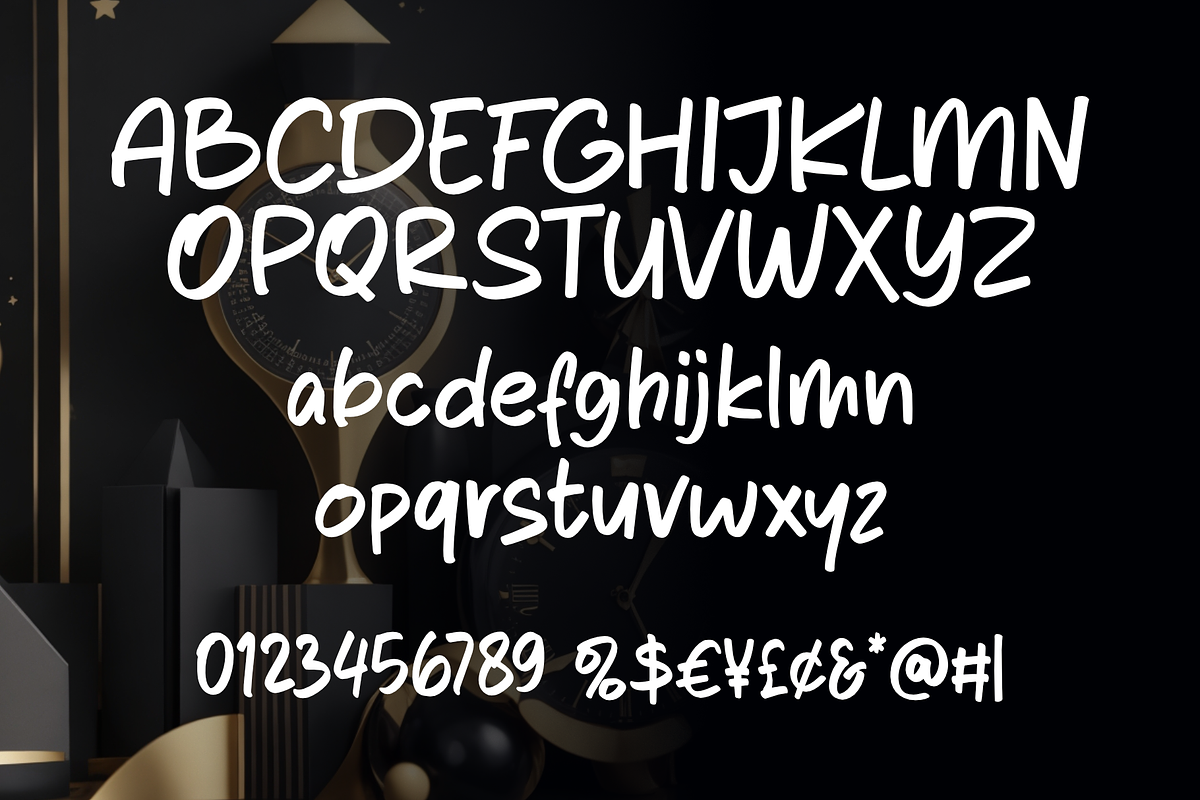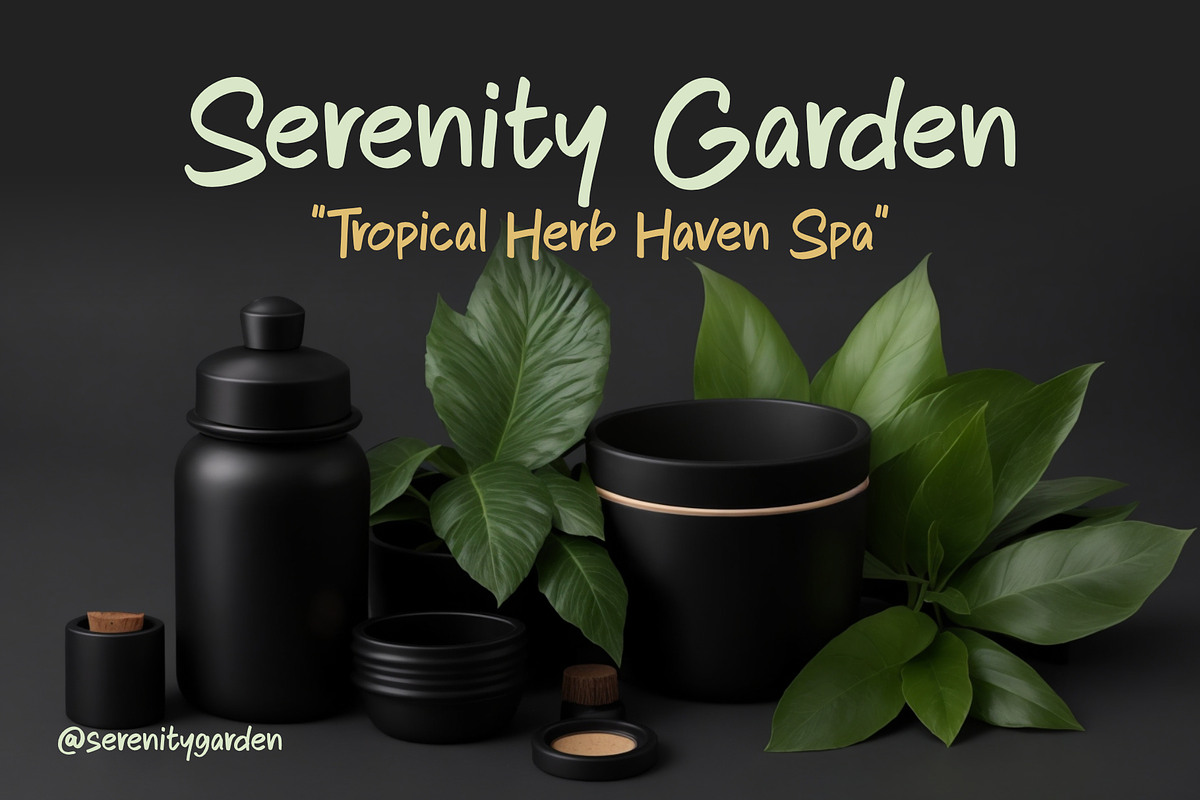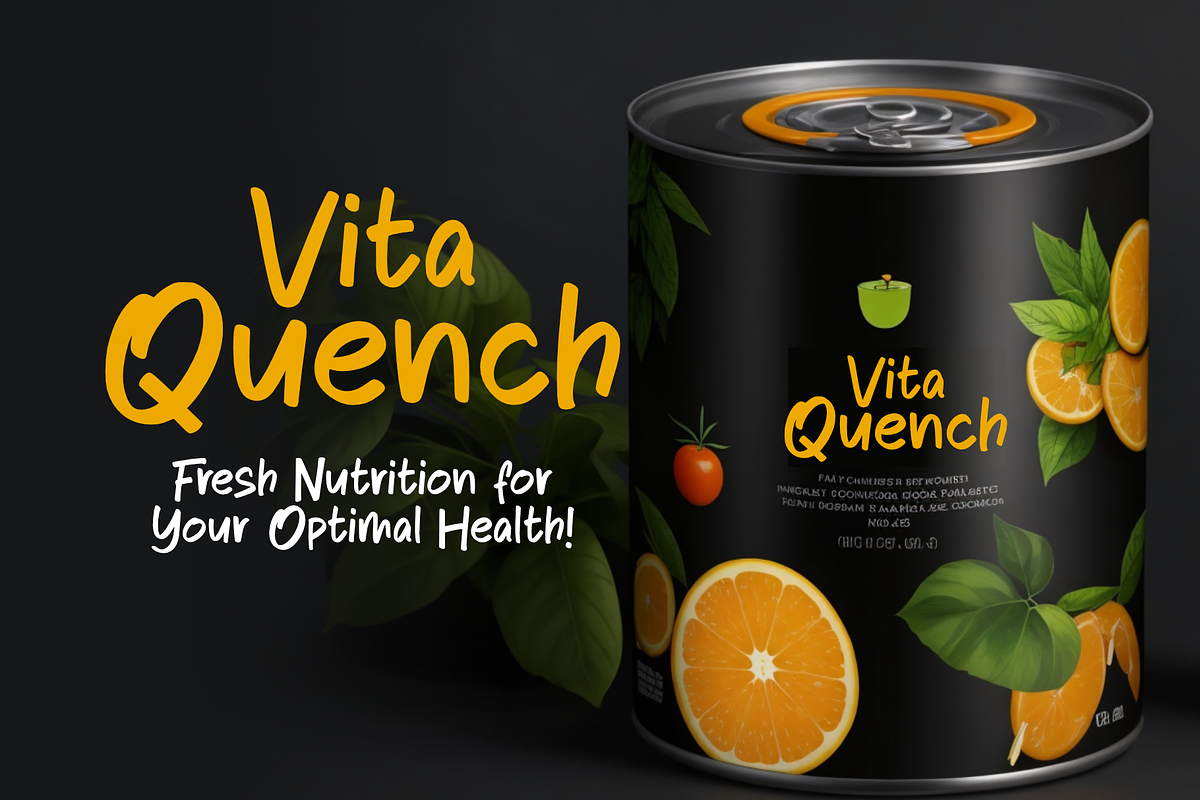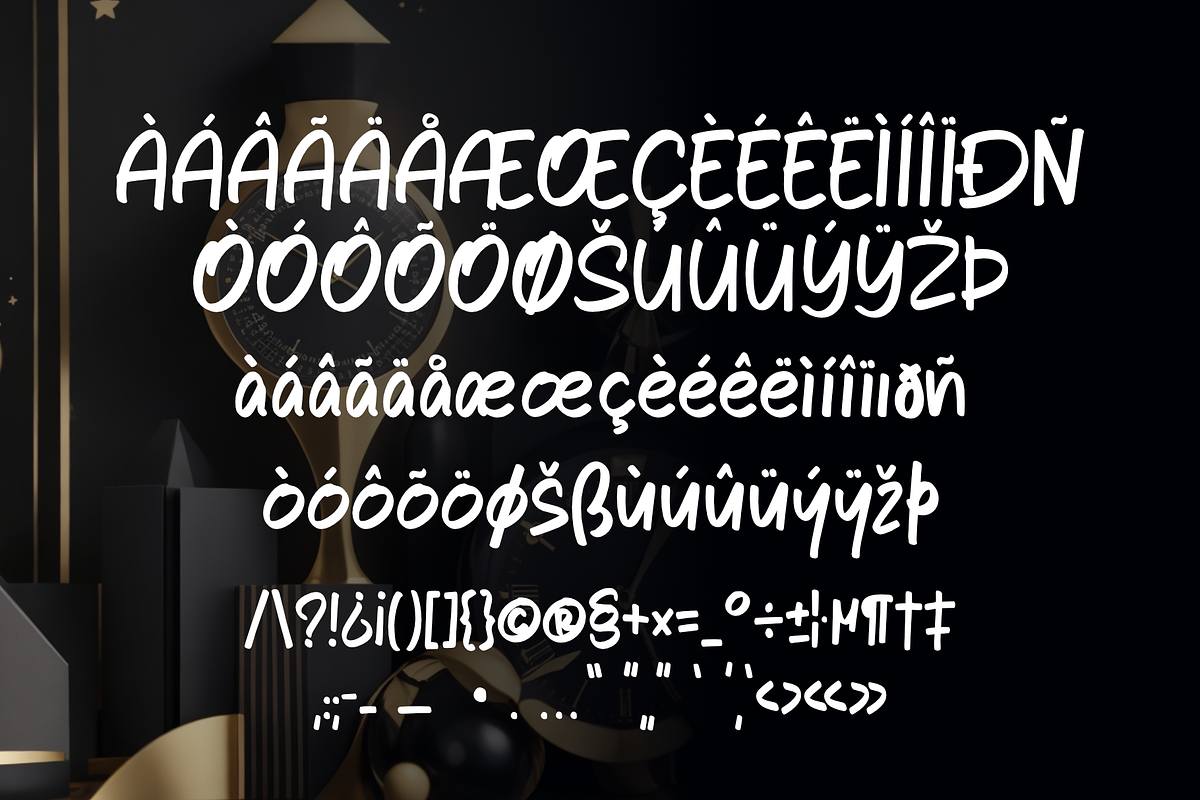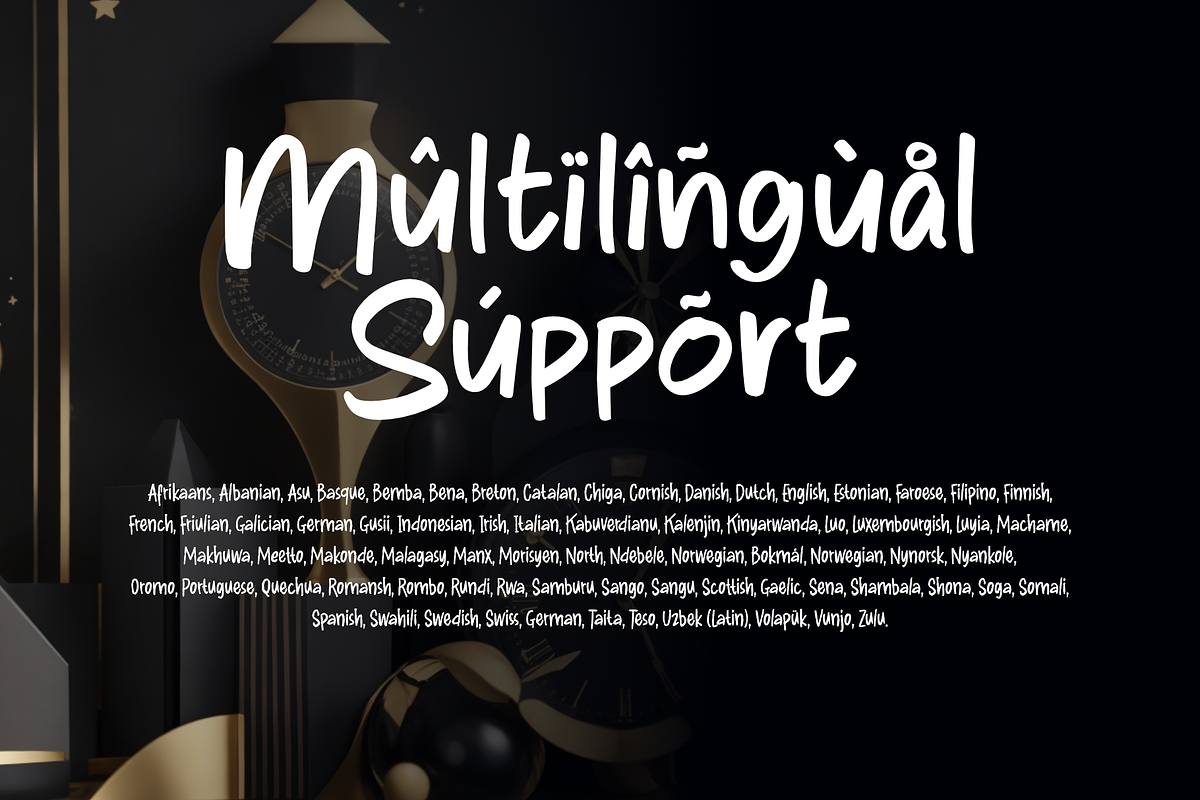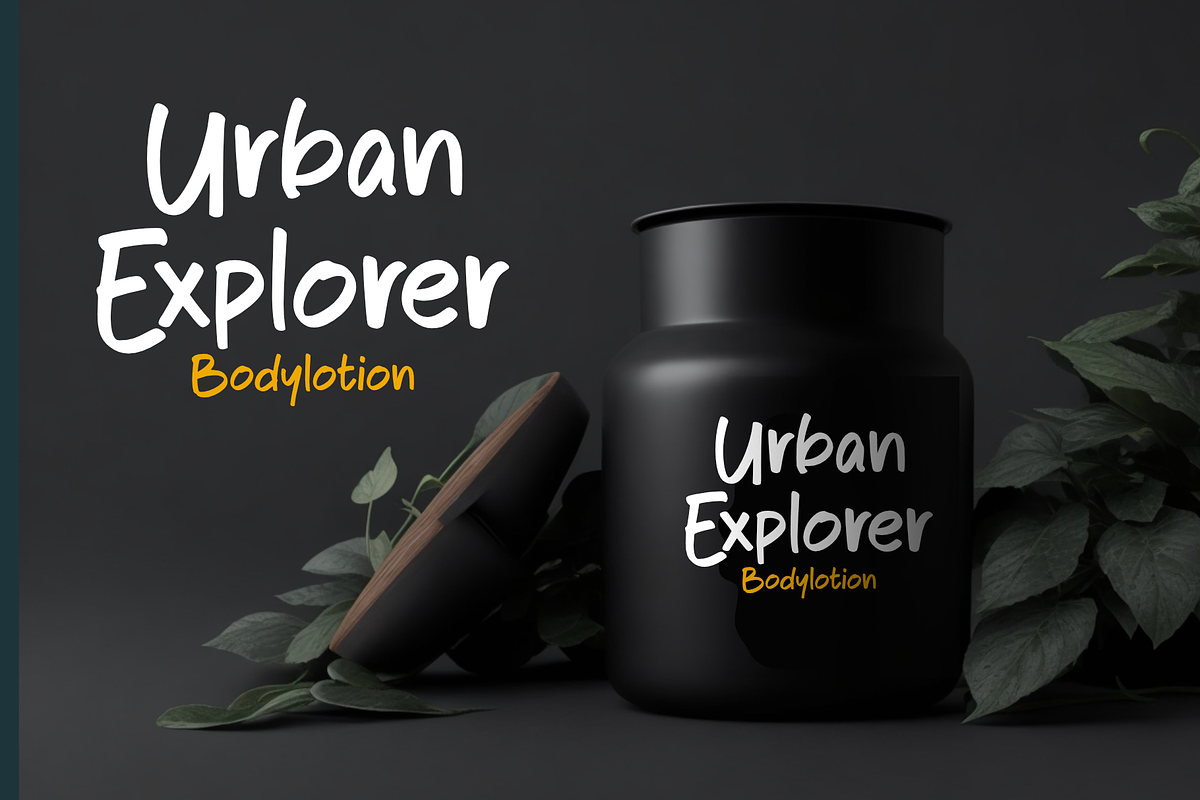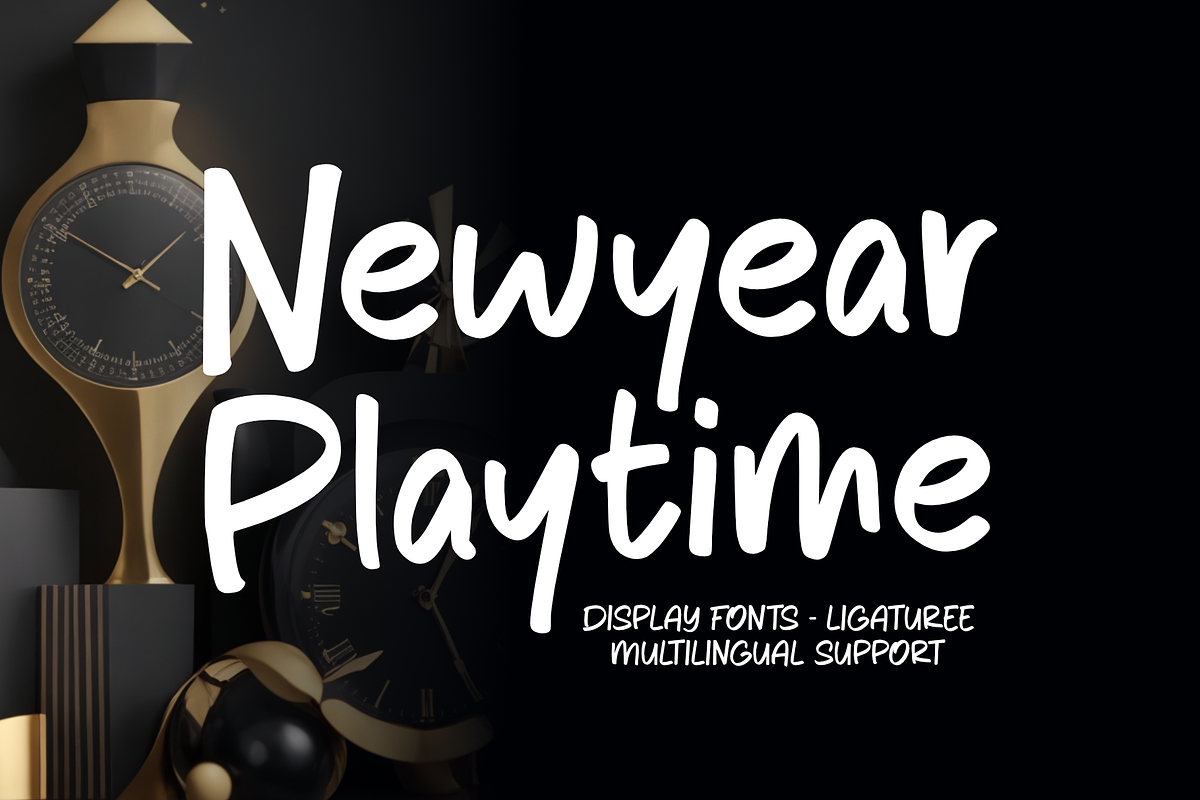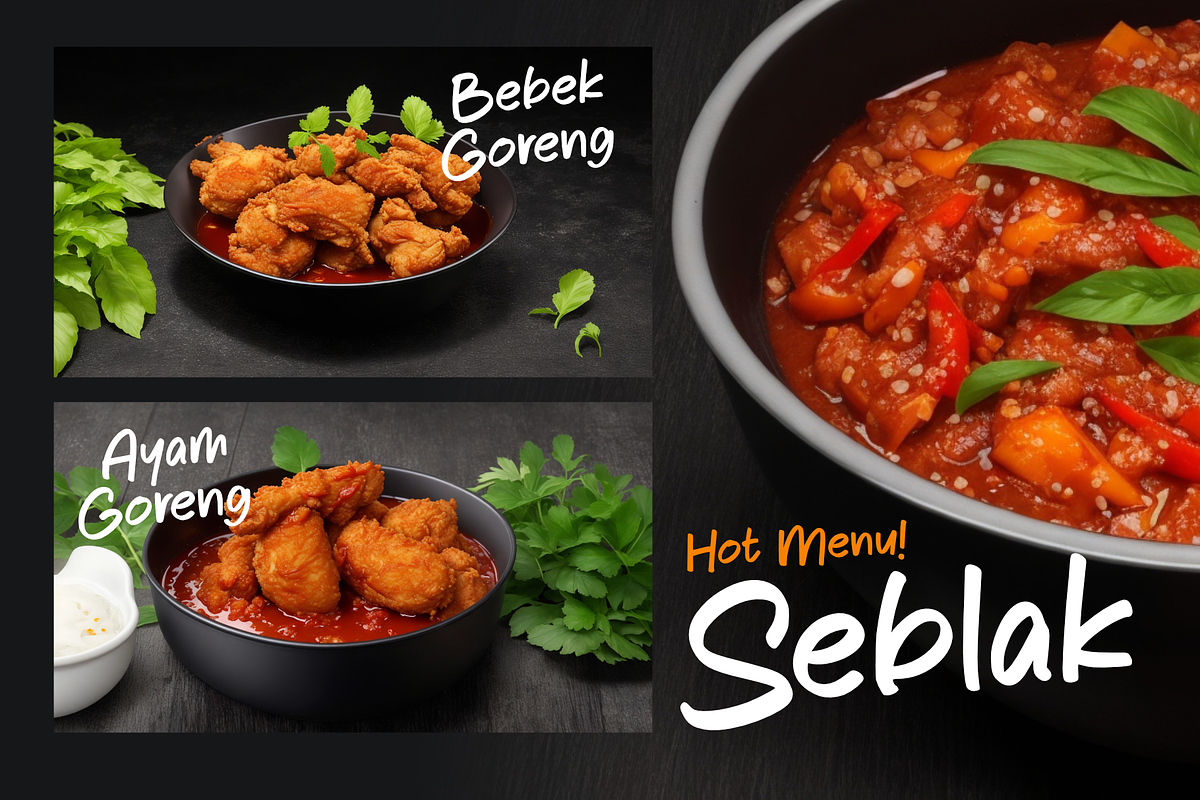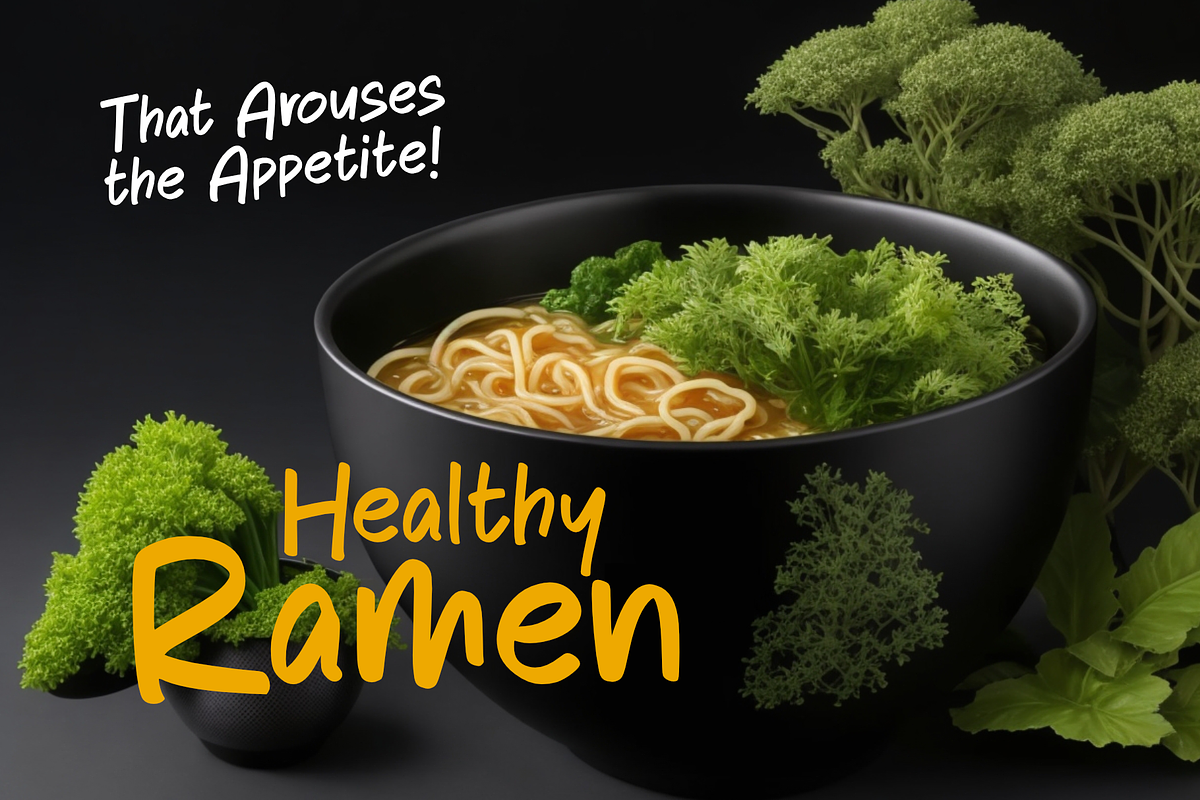
Newyear Playtime - Display
Newyear Playtime, a captivating display font that perfectly embodies the essence of fun and celebration, is the ideal choice for renowned brands seeking a distinctive touch. With its playful yet sophisticated design, this font effortlessly elevates any product or brand, adding a touch of joy and modernity. Make a lasting impression with Newyear Playtime and let your brand shine with a vibrant and stylish identity
- Ligaturee
- Multilingual Accent
This Font Support Languages : Afrikaans, Albanian, Asu, Basque, Bemba, Bena, Breton, Catalan, Chiga, Cornish, Danish, Dutch, English, Estonian, Faroese, Filipino, Finnish, French, Friulian, Galician, German, Gusii, Indonesian, Irish, Italian, Kabuverdianu, Kalenjin, Kinyarwanda, Luo, Luxembourgish, Luyia, Machame, Makhuwa, Meetto, Makonde, Malagasy, Manx, Morisyen, North, Ndebele, Norwegian, Bokmål, Norwegian, Nynorsk, Nyankole, Oromo, Portuguese, Quechua, Romansh, Rombo, Rundi, Rwa, Samburu, Sango, Sangu, Scottish, Gaelic, Sena, Shambala, Shona, Soga, Somali, Spanish, Swahili, Swedish, Swiss, German, Taita, Teso, Uzbek (Latin), Volapük, Vunjo, Zulu.